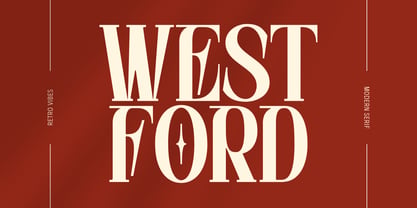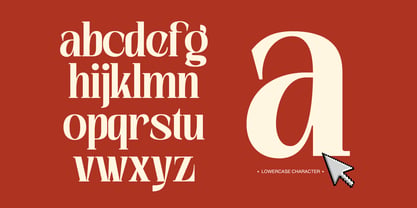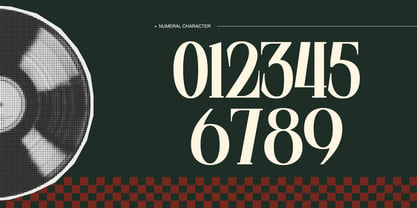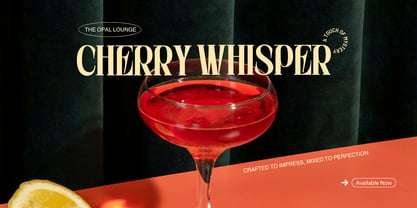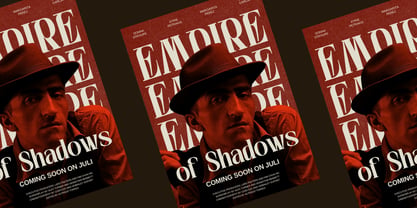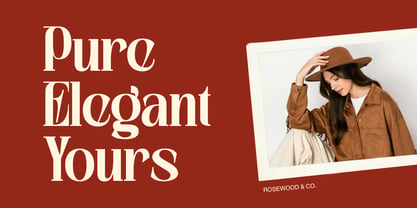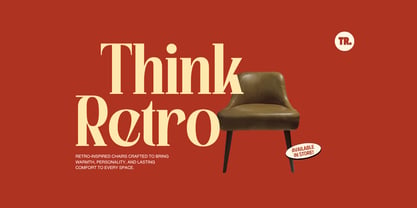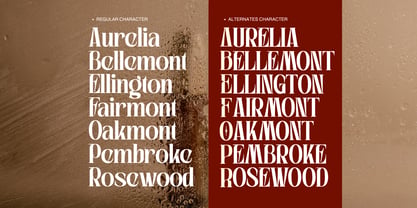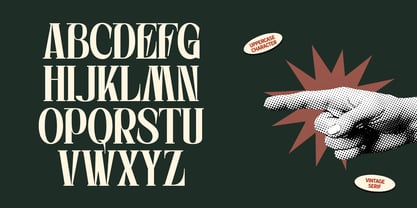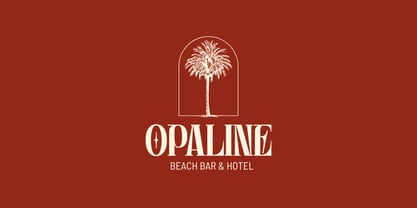
Westford Modern
by Illushvara
The Westford Modern Font Family was designed by Bayu Suwirya and published by Illushvara. Westford Modern contains 1 styles. More about this family
Westford is a modern serif typeface that blends vintage charm with contemporary sophistication. Featuring elegant high-contrast letterforms, refined curves, and distinctive retro-inspired details, it is designed to create bold and memorable visual identities. Perfect for logos, branding, fashion labels, packaging, editorials, luxury products, poster film, hotel logo, wedding and promotional materials. Westford delivers a timeless aesthetic that combines classic heritage with modern style, making every design feel confident, premium, and effortlessly distinctive.